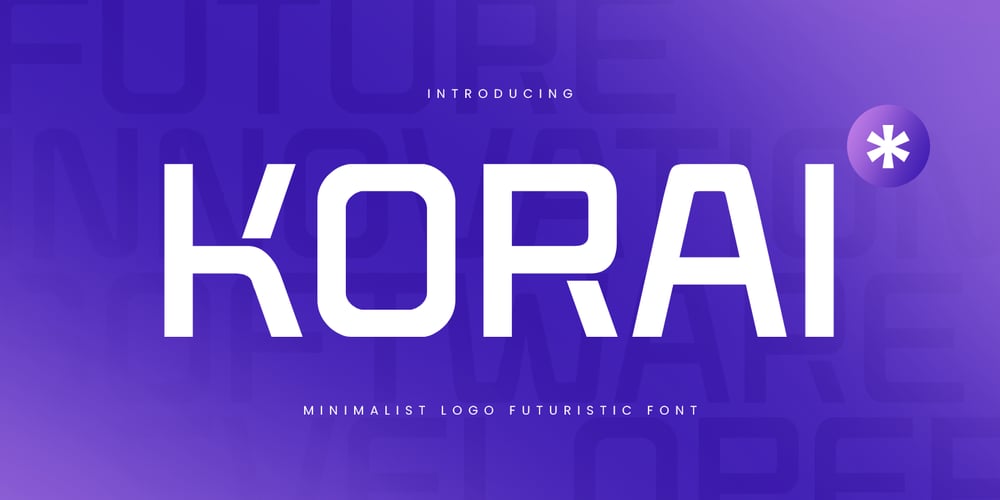
Korai Font Family was designed by Zamroni Hamzah and published by Sensatype Studio. Korai contains 2 styles and family package options. KORAI, a Minimalist Logo Futuristic Font that created special for Branding, Title and more stand out typography for Techno and Futuristic. It’s so perfect to add your style and headline overview for Sci-fi, Technology, Futuristic, and Modern theme. And specially for this font, we crafted for Modern Techno style and Masculine feels so enjoy to create any project that will show your main idea out.KORAI Minimalist Logo Futuristic Font ready with: Characters prepared to get best results 4 files format already Preview as a inspirations that you can do with this font Ready with Uppercase & Lowercase characters Wish you enjoy our font. ๐